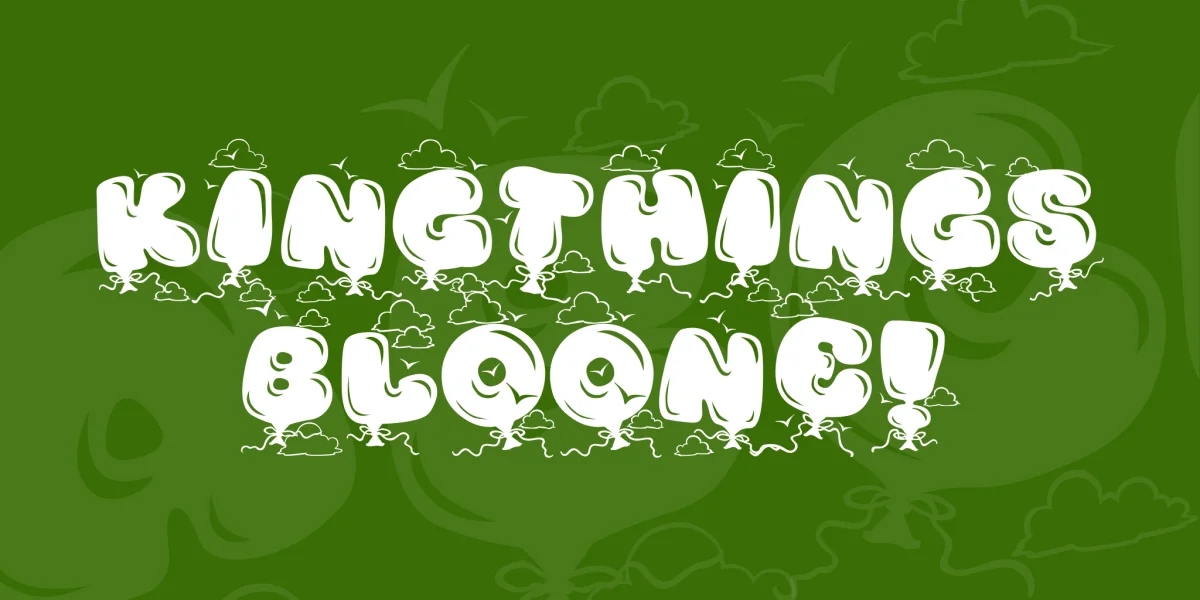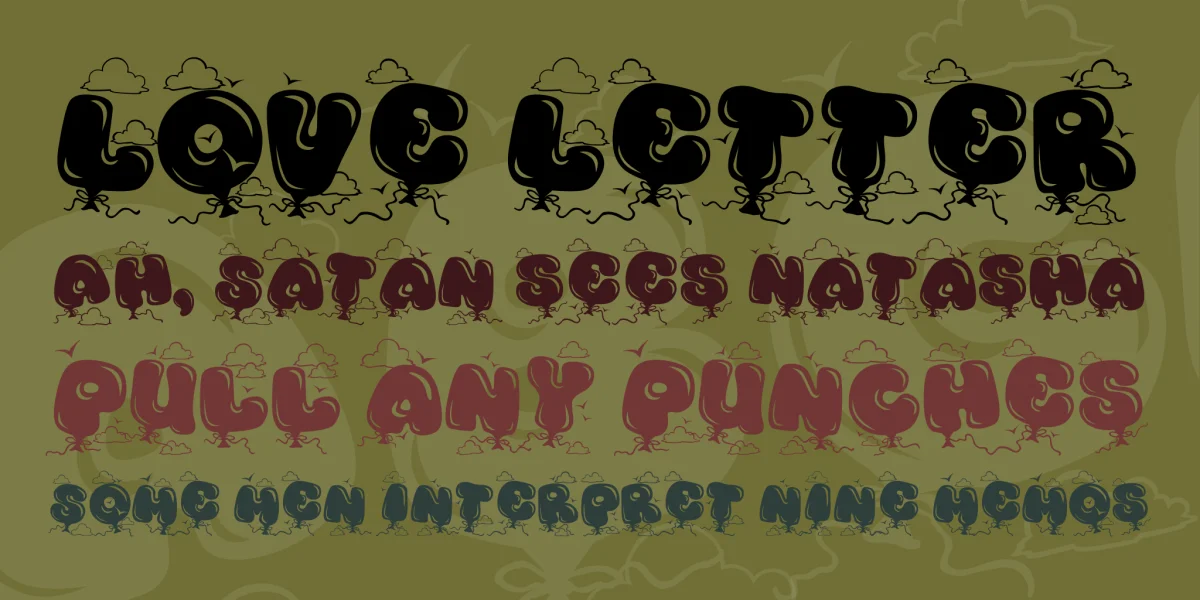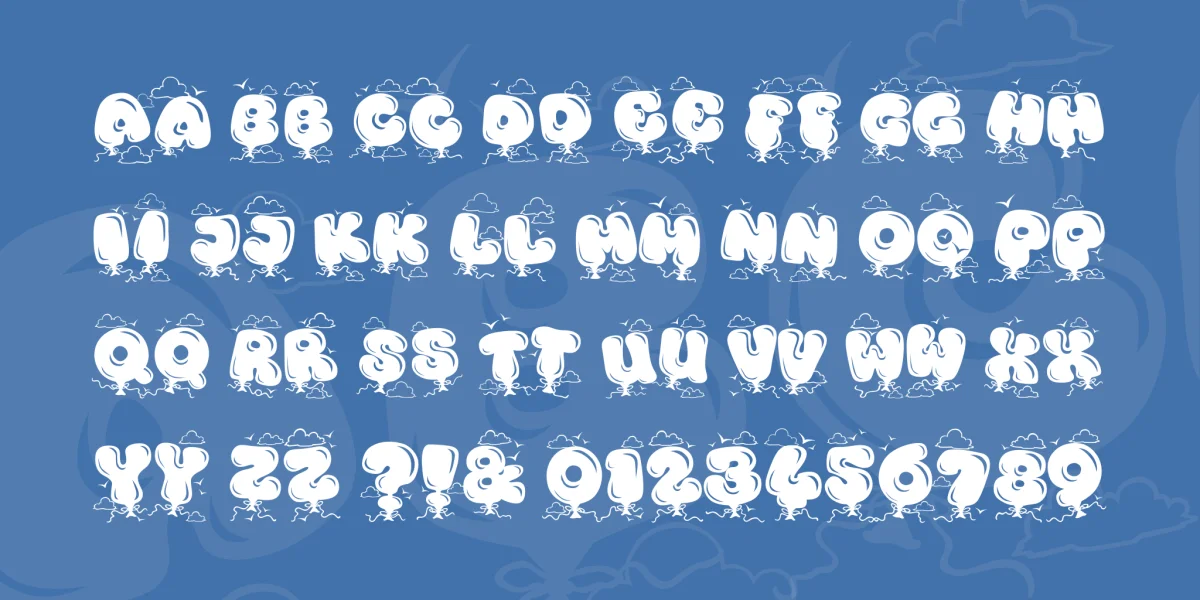
This font has been lurking and unfinished and then I finally thought - get on with it you git! Exactly what is says on the tin - no more no less - I still hate that letters are the same as each other in display faces (?) so no upper and lower case, just alternates to be mixed up. And clouds and seagulls...